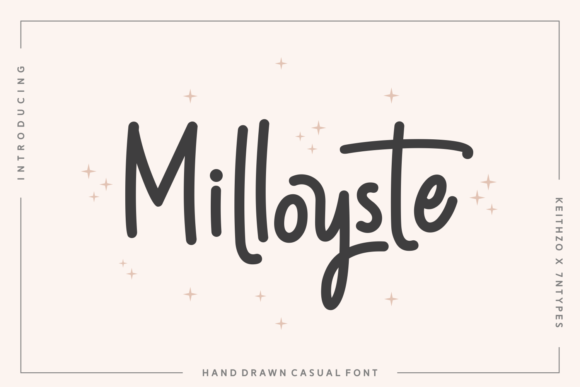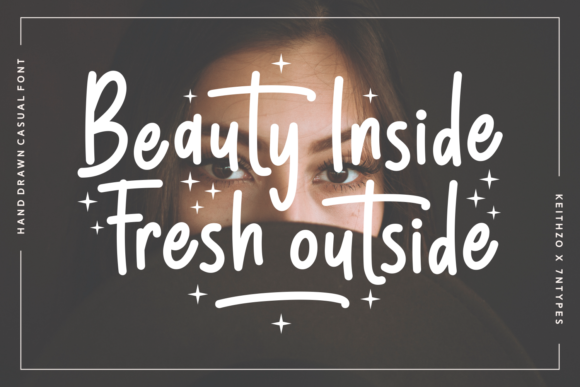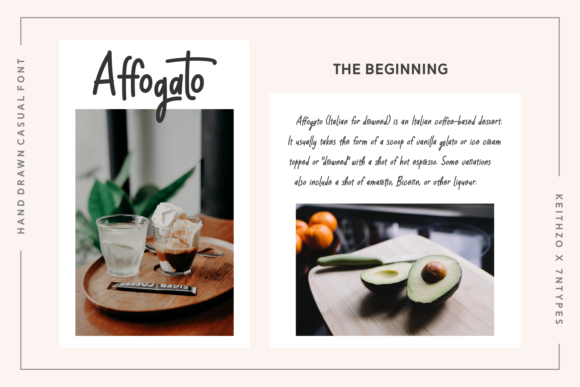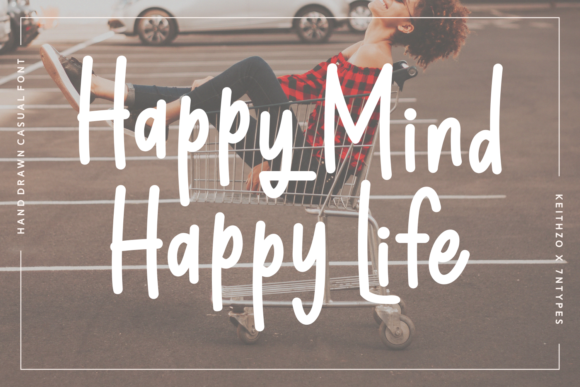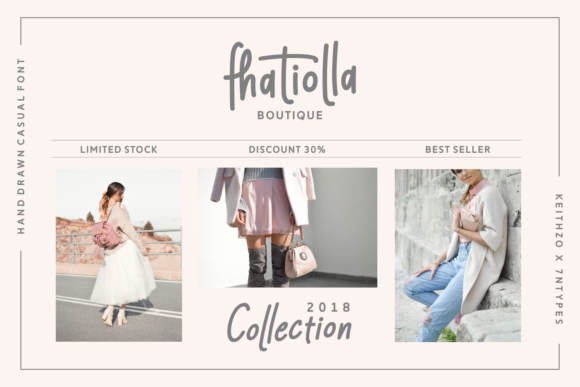
Milloyste Font
About Milloyste Font
Milloyste is a gorgeous and ethereal monoline script font, ideal for a wide range of projects! This font has a thick weight with tons of legibility, and works well as a headline to work in fashion, editorials, print, and social media as a way to suggest easiness and a relaxed vibe.